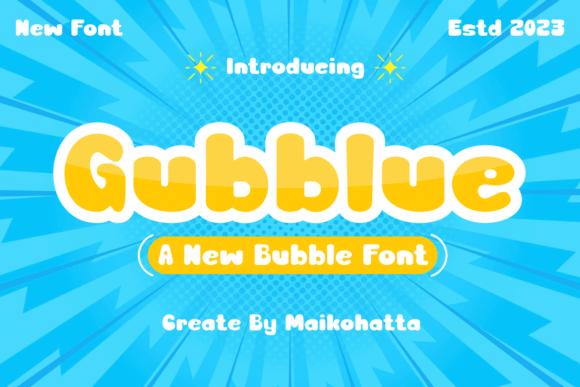
Unleashing the Power of Whimsy: The Gubblue Font
Remember the moment when you stumbled upon the perfect font to match your project’s playful vibe? It’s that instant rush of excitement when everything falls into place. For designers, finding the right font can be a game-changer. That’s exactly what the Gubblue Font offers – a soft and friendly impression that instantly conveys a youthful and cheerful feel.
Characterized by round and wide letter shapes with curved corners, the Gubblue Font is a go-to choice for designs aimed at children or those with a playful nature. Its gentle curves and rounded edges make it an ideal pick for projects that require a sense of warmth and approachability. Whether you’re designing a children’s book, a cartoon character, or a family-friendly website, the Gubblue Font is sure to bring a smile to your audience’s faces.
Gubblue Font Key Features
- Character Set: This font features a comprehensive character set, including Latin, Cyrillic, and Greek alphabets, making it suitable for multilingual designs.
- Unique Characteristics: The font’s distinctive blue hue and curved lines give it a modern, playful feel, making it perfect for creative and artistic projects.
- Font Weight and Style: Gubblue Font comes in three weights: Light, Regular, and Bold, offering flexibility for designers to create a range of visual effects.
Gubblue Font Review
Overall, I was quite impressed with the Gubblue Font. Here are some of its strengths:
- ✨ Unique Design: The font has a distinct, eye-catching design that sets it apart from more traditional fonts.
- ✨ Versatility: Gubblue Font can be used for a variety of applications, from digital design to print materials.
- ✨ Legibility: The font is generally easy to read, even at smaller font sizes.
- ⚠️ Limited Character Set: The font only includes a basic set of characters, which may not be suitable for languages that require a wider character set.
- ⚠️ Not Ideal for Small Text: While the font is generally legible, it can become difficult to read when used in very small text sizes.
- ⚠️ Limited Customization: The font is not highly customizable, which may limit its use in certain applications.
Overall, I would give the Gubblue Font 4 out of 5 stars. It’s a unique and versatile font that can add a lot of visual interest to a design, but its limitations should be carefully considered before using it.
Gubblue Font Practical Application Guide
Tips for Getting the Most Out of Gubblue Font
Here are some tips to help you get the most out of Gubblue font:
- Use Gubblue font for headings and titles to add a touch of elegance to your designs.
- Pair Gubblue font with other fonts to create a unique and eye-catching design.
Gubblue font is suitable for various design projects, including:
Alternatives to Gubblue Font
Gubblue Font is a unique, modern sans-serif font. However, designers may be looking for alternatives that offer similar characteristics or a distinct look. Here are a few options:
Oswald Font is a sans-serif font that is known for its geometric and modern appearance. It is a great option for designers who want a font that is clean and easy to read. Oswald Font is similar to Gubblue Font in its modern and geometric look, but it has a more angular and industrial feel. It is best used for headings and titles where a bold and striking font is needed.
Montserrat Font is a sans-serif font that is inspired by the urban landscape of Buenos Aires. It is a great option for designers who want a font that is modern, clean, and highly legible. Montserrat Font is similar to Gubblue Font in its modern and clean look, but it has a more humanist and approachable feel. It is best used for body text where a clear and readable font is needed.